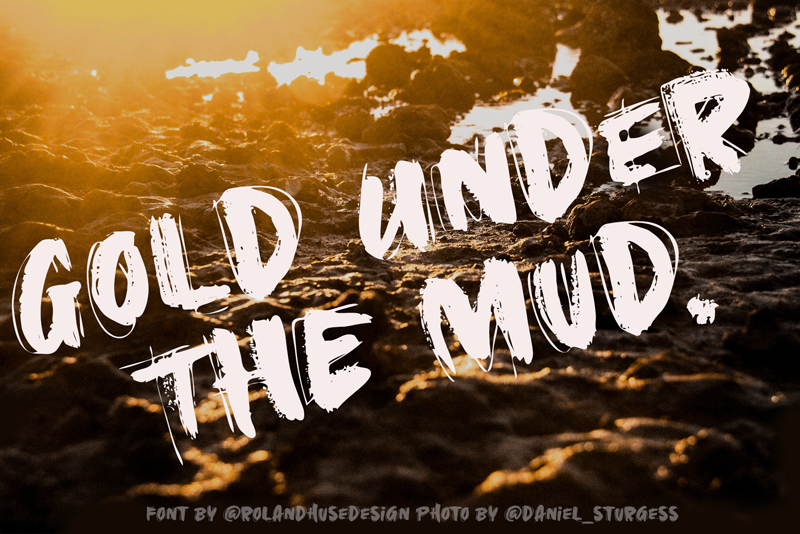
GOLD UNDER THE MUD is a hand drawn grungy font with all capital letters. I recommend to play around and combine / mix up upper and lowercase characters it looks more natural when you have for double letters so they aren't identical. I set a standard ligature for double T (TT) but for the rest you need to switch lowercase to uppercase to change and break repetition. Commercial use requires donation so in case you wish to use it for a business or work that generates profit please consider to support my work in exchange for the value it adds up to yours. For language extensions, extra characters etc. please contact@rolandhuse.com Follow and see more of my work (or for eventual updates in the future on this font) on instagram.com/rolandhusedesign Have a Great Day and good luck with your creative work! Roland * * * You MAY NOT sell this font or claim them as your own. You MAY NOT edit or rename this font. You MAY NOT redistribute this font. Background photo credit : @daniel_sturgess from Unsplash. |